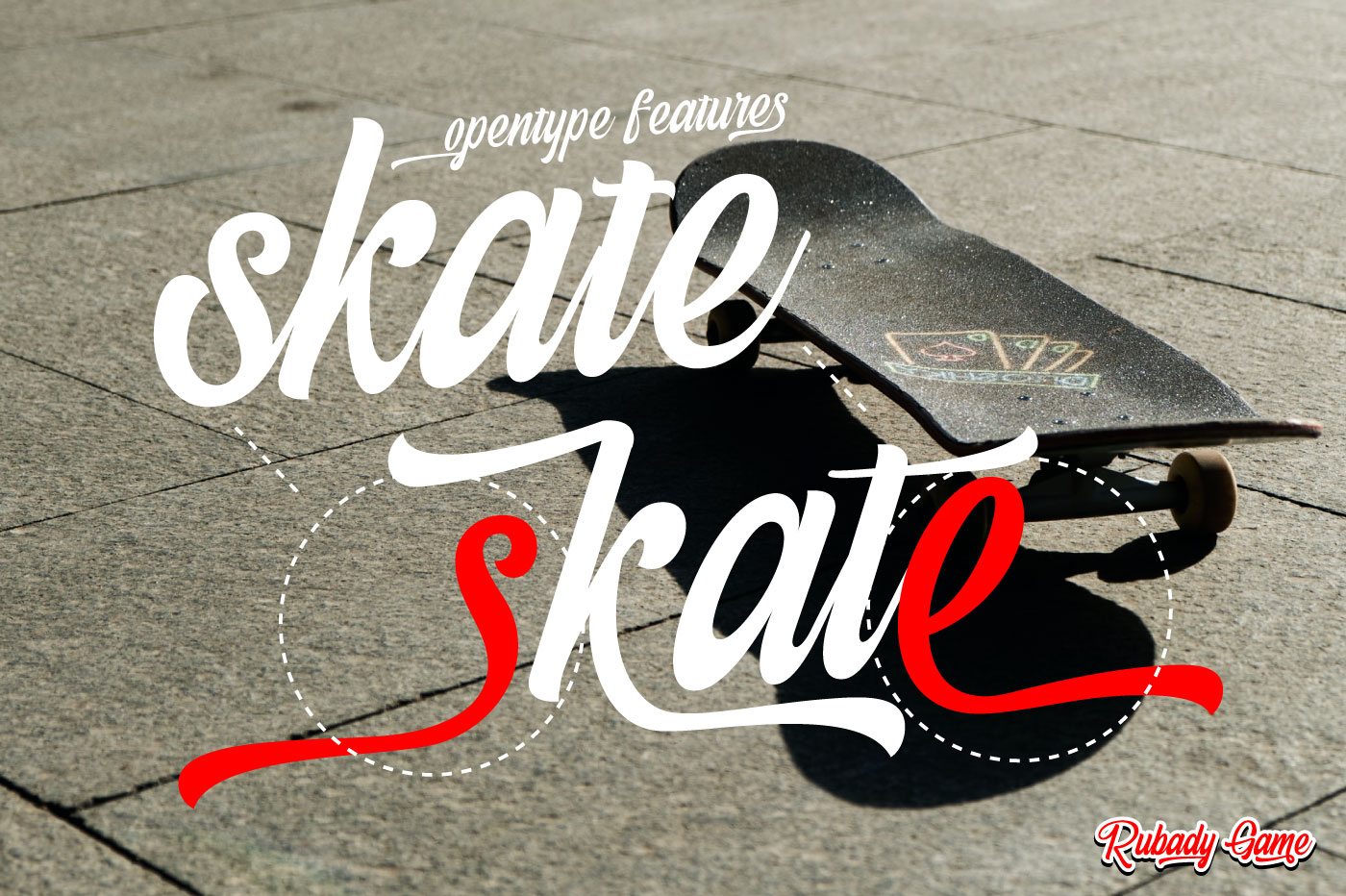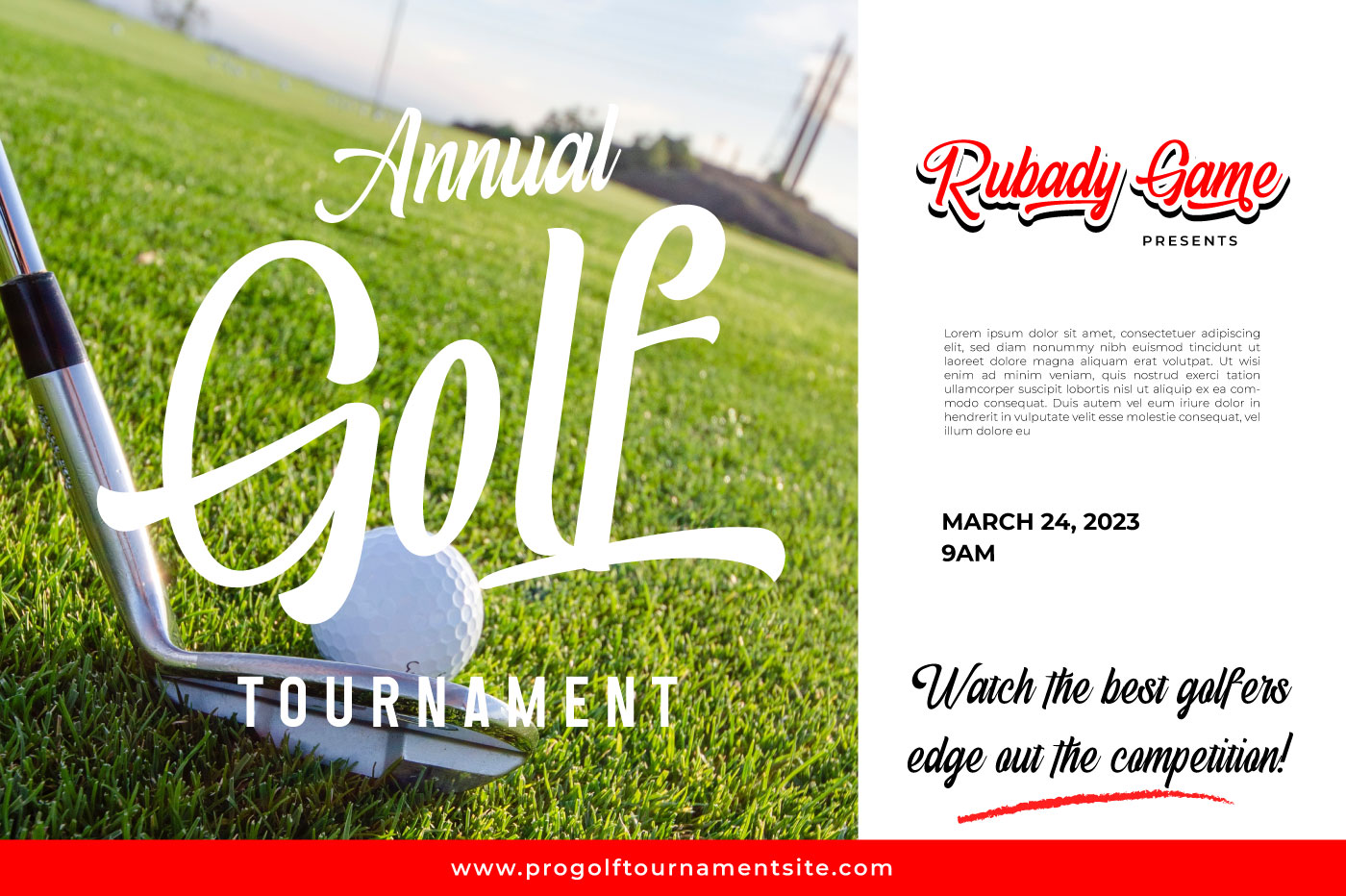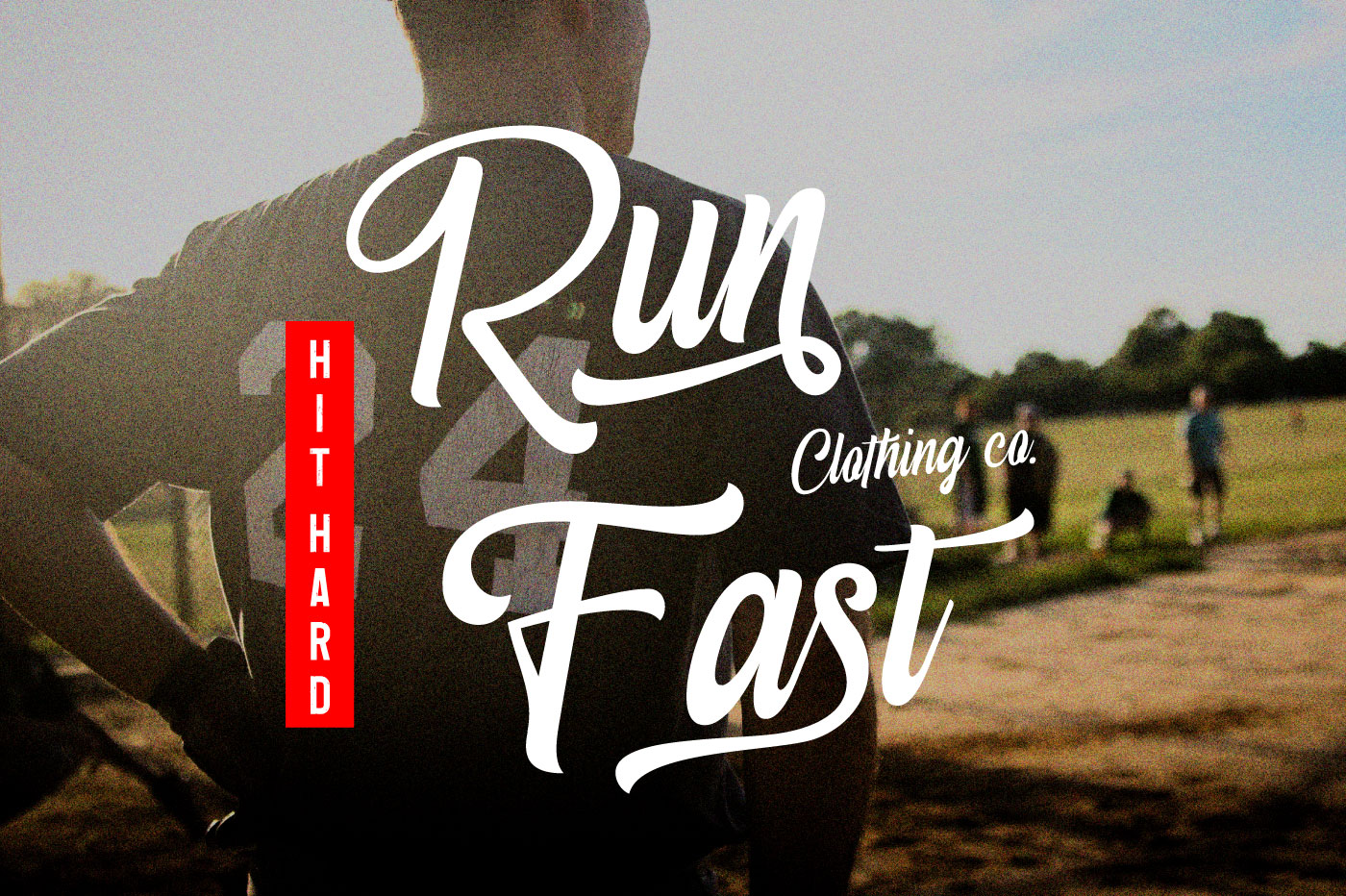
Rubady Game Script Font
This is a script font that is bold and sleek but looks more unique with lots of alternate options in it. This font is perfect for branding projects, logos, social media posts, advertisements, product packaging, product designs, label, photography, watermark and so much more. (multilingual support)